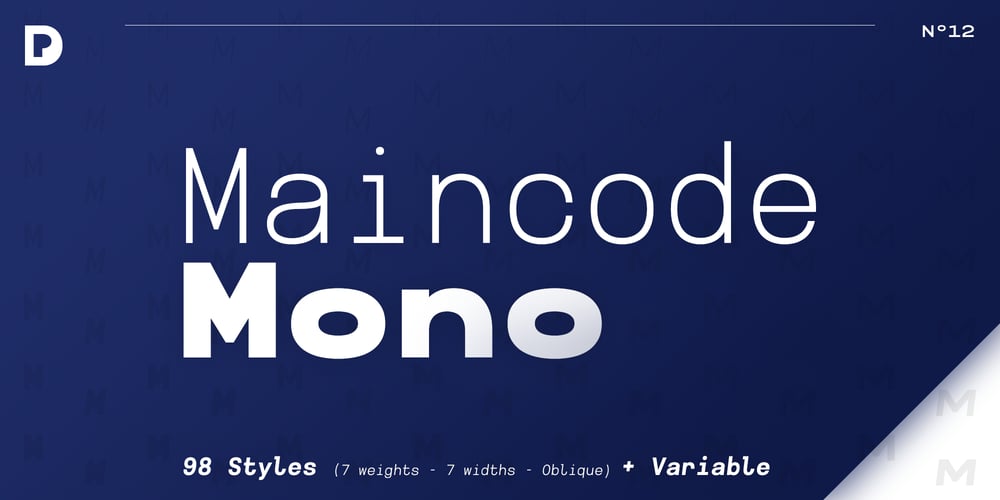
Maincode Mono Font Family was designed by Nathanaël Dorange and published by Par Défaut. Maincode Mono contains 99 styles and family package options. Maincode Mono is a Monospaced Family declined in 7 weights, 7 widths and oblique. There is also a variable version.The family was composed of 511 glyphs, Latin & Cyrillic alphabets and 9 OpenType Features (numerator, denominator, superscript, subscript, fraction, case sensitive form, discretionary ligatures, contextual alternate, all access alternate).